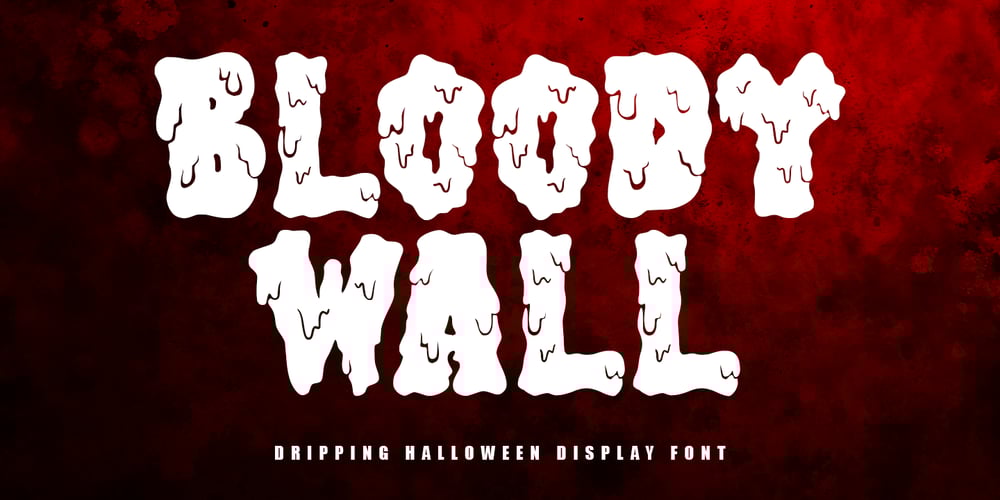
MC Bloody Wall Font Family was designed by Gilang Maulana and published by Maulana Creative. MC Bloody Wall contains 1 styles and family package options. Bloody Wall is a horror vibe decorative display font. With awesome blood stroke, upright and fun character. To give you an extra creative work. Bloody Wall font support multilingual language. This font is good for logo design, social media, movie titles, books titles, a short text even a long text letter and good for your secondary text font with script. Make a stunning work with Bloody Wall dripping halloween display font.Cheers,Maulana Creative